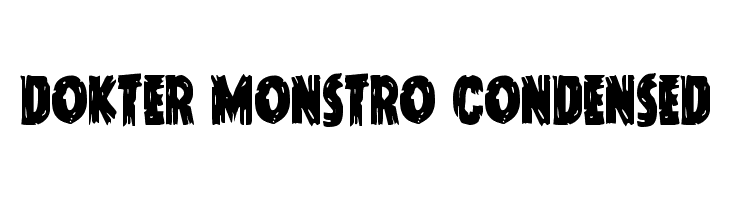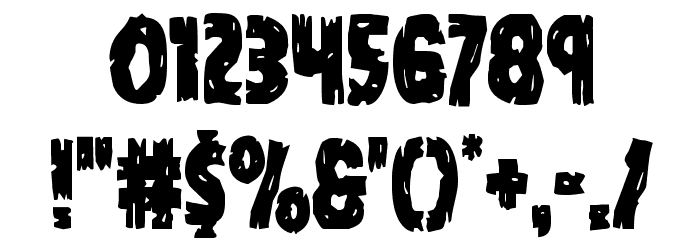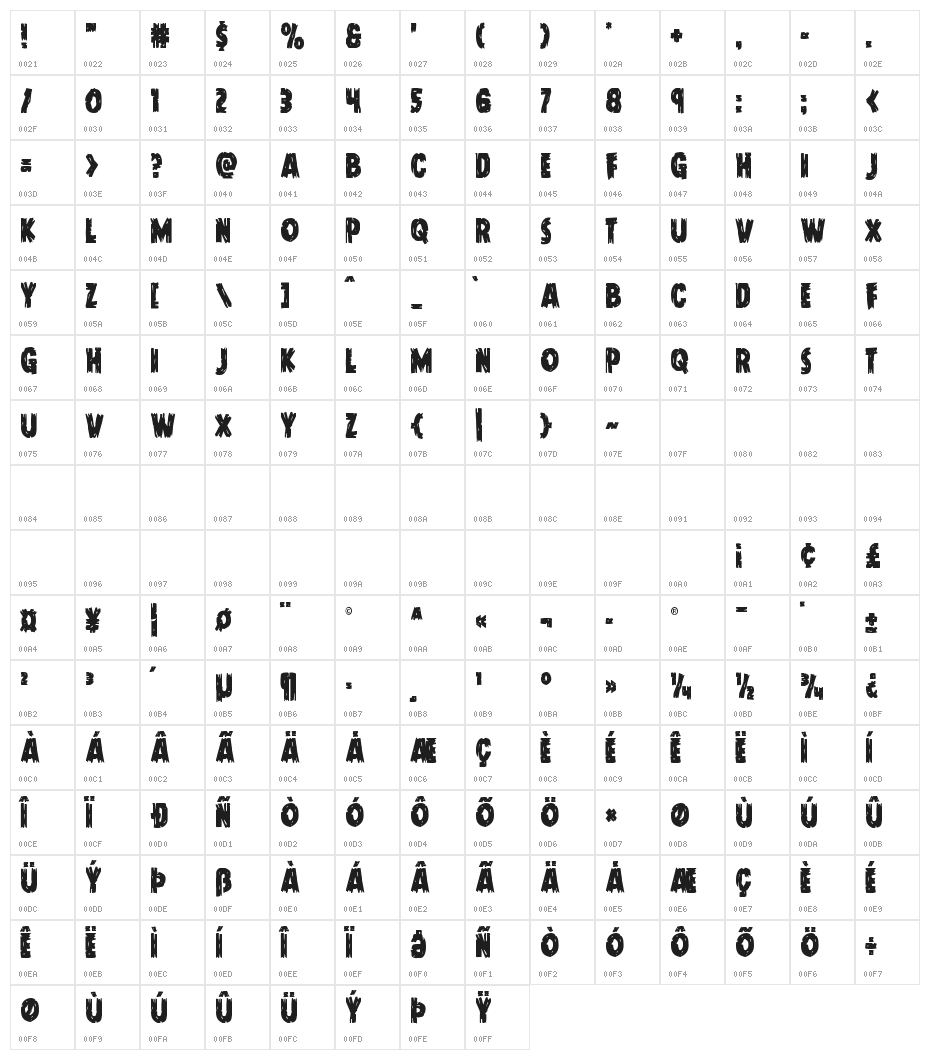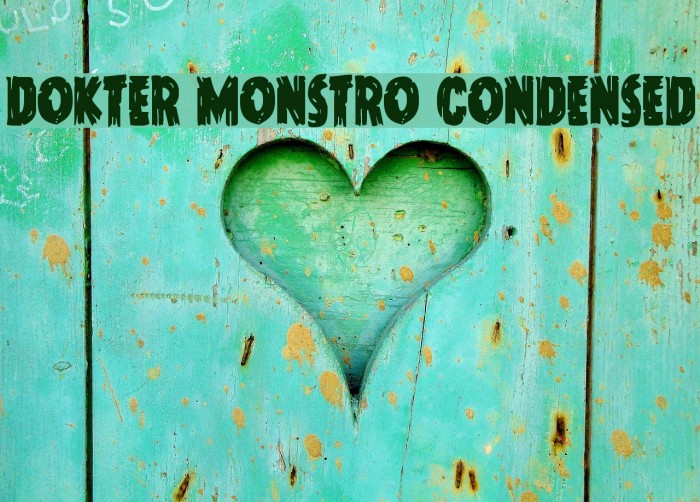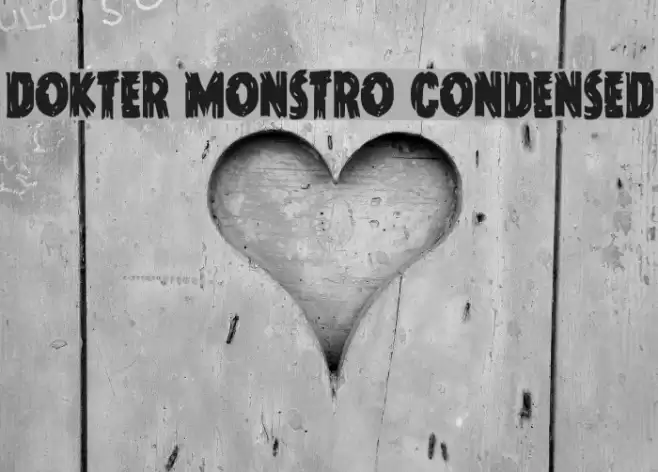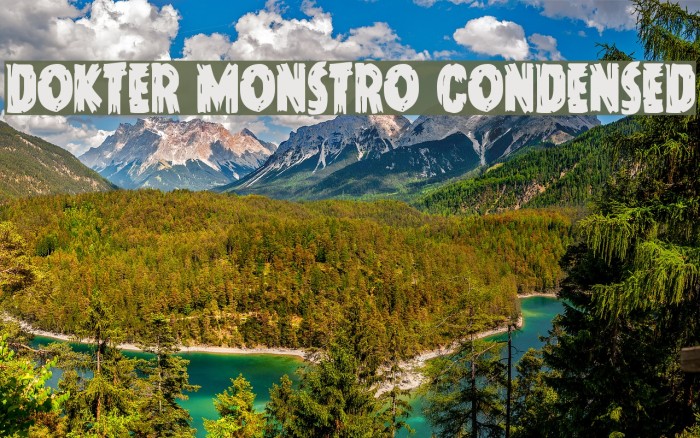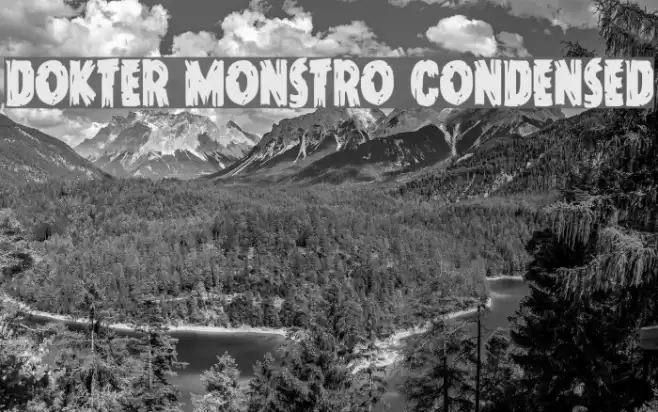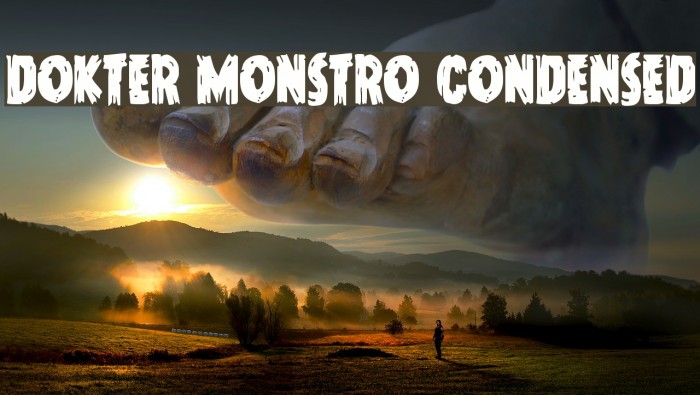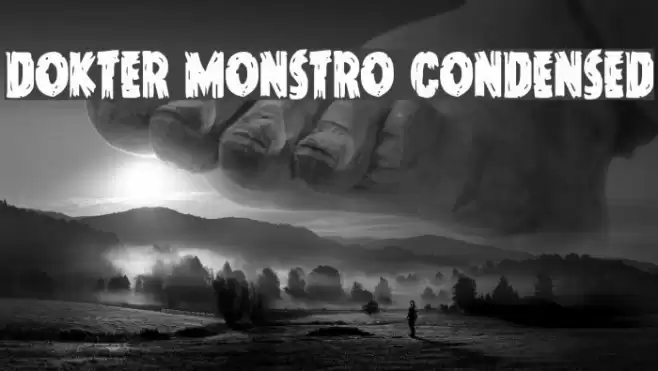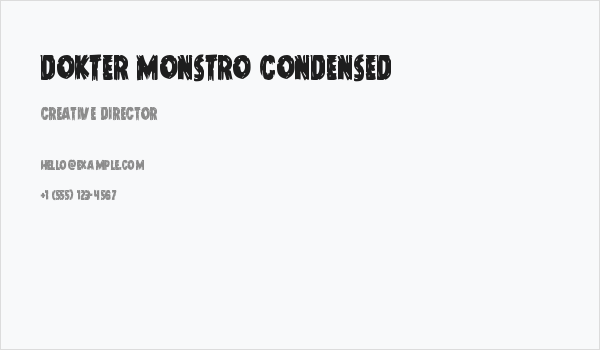
Dokter Monstro Condensed Font
Dokter Monstro Condensed Description
This font features a bold and condensed style with a distinctly jagged and distressed appearance. The characters are heavily stylized, with irregular edges and a rough texture that gives them a dynamic and energetic feel. The uppercase and lowercase letters maintain a consistent height, contributing to a compact and cohesive look. The numbers and special characters follow the same design principles, ensuring uniformity across all glyphs. This font's unique style makes it stand out, ideal for projects that require a strong visual impact.
| Proposed Projects | Perfect for horror-themed posters, edgy branding, album covers, and any project needing a dramatic and eye-catching typeface. |